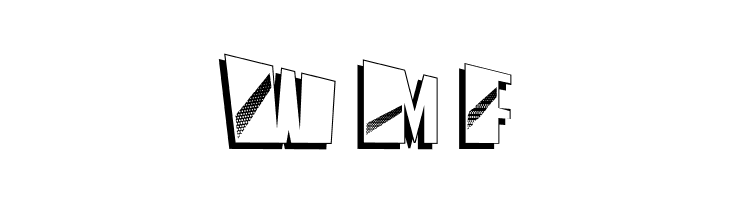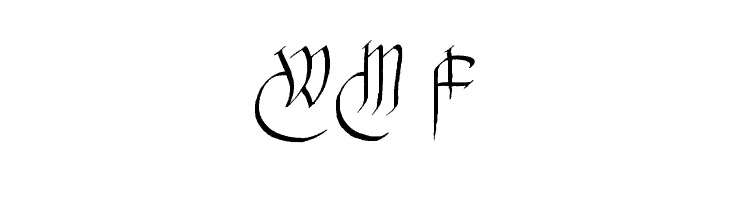
Divine And Earthly Imperium Font
An ornate Blackletter font with intricate, gothic-inspired details.
Quick Divine Font
A bold, dynamic script font with a strong, energetic presence.
Say Divine Font
A bold, angular serif font with a modern and edgy style.
Tate Divine Font
Alternika
A gothic, medieval-style font with sharp, elongated strokes and intricate detailing.
ACSF Divine 5pt light 57px Font
A decorative font with a cross-stitch pattern, offering a handcrafted and artistic look.
Divine Regular Font
A bold, 3D geometric font with a dotted texture and strong visual impact.
ACSF Divine 5pt 57px Font
A geometric, grid-based font with a pixelated and decorative design.
DivineBeautySansDemo Font
A high-contrast, condensed sans-serif with art deco influences.
Divine Holidays Font
A handwritten, playful, tall, thin font with irregular letterforms.
DivineBeautyScriptDemo Font
Light, handwritten script with elegant, flowing lines.